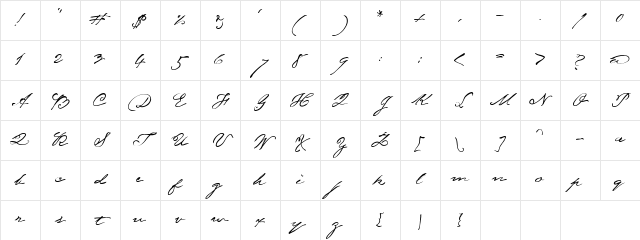
Complete AL Constitution Regular glyph index. Displaying only characters natively supported by AL Constitution Regular font.
AL Constitution is a composed and adaptable typeface that performs quietly and consistently across a wide range of design contexts.